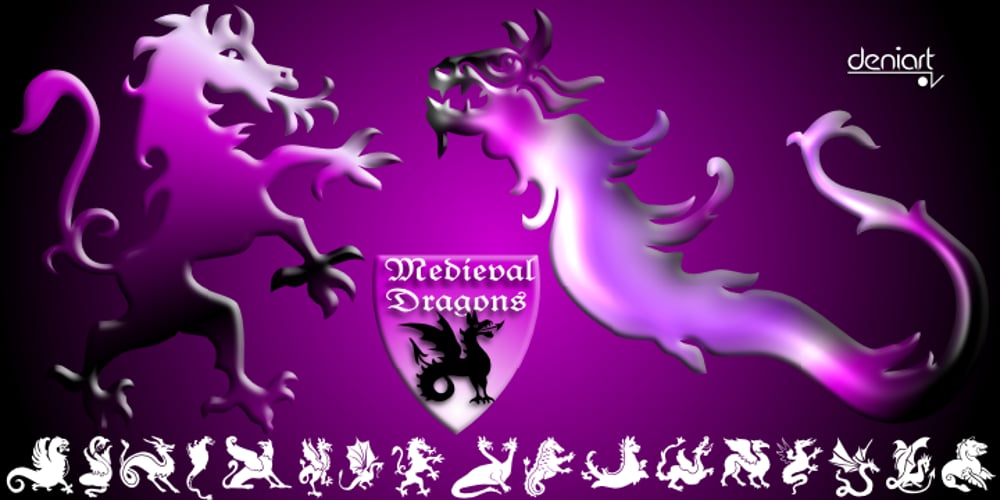
Medieval Dragons Font Family was designed by Denise Koehler and published by Deniart Systems. Medieval Dragons contains 1 styles and family package options. The beasts of mythological and medieval times. From semi-dragons like lindorms and wyverns to classical and serpent-like dragons, this package features 52 unique medieval beasts that are sure to add a little fire to all your presentations.